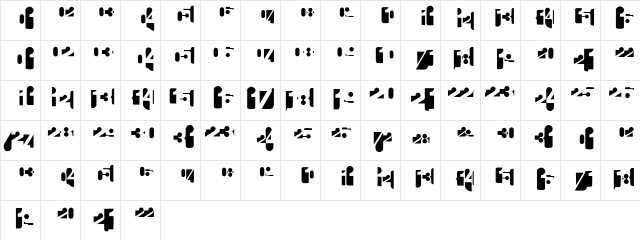
CalendarDigits Regular
Design Context for CalendarDigits Typeface
CalendarDigits has a distinctly futuristic character, with geometric precision and clean angles that feel at home in technology, gaming, and sci-fi contexts.